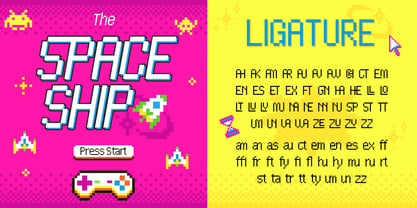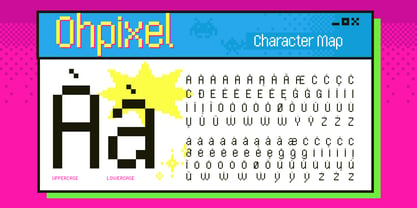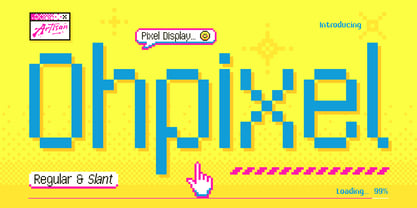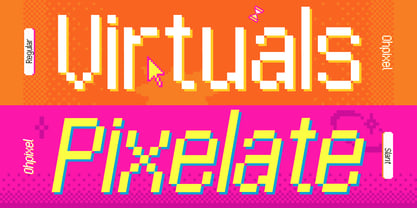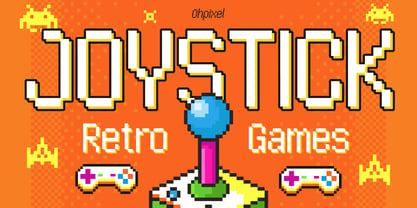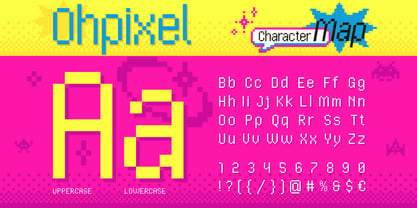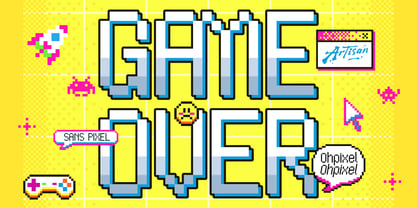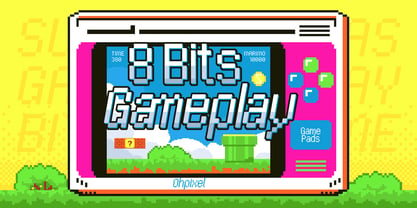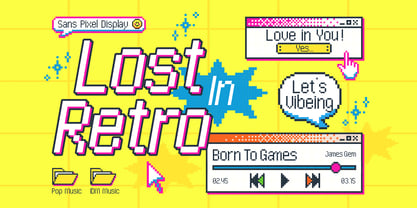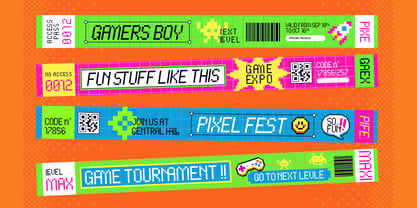
Ohpixel
by Artisan Themes
The Ohpixel Font Family was designed by Meidy Meichico and published by Artisan Themes. Ohpixel contains 2 styles and family package options. More about this family
Game on, pixel lovers!
Meet Ohpixel, your new retro BFF that’s here to teleport you straight into the golden era of 8-bit arcade vibes. Bright colors? Check. Chunky pixels? Double check. That nostalgic ‘click-clack’ feeling from old-school games? Oh, you bet.
Comes in two styles — Regular for that clean, readable punch, and Slant for when you wanna add a little extra speed to your words (perfect for titles, logos, or anything that needs to shout “I’m awesome!”).
Plug it into your design and boom — instant retro magic. Posters, game UIs, merch, YouTube thumbnails… you name it, Ohpixel brings the fun.
So… ready to press Start?